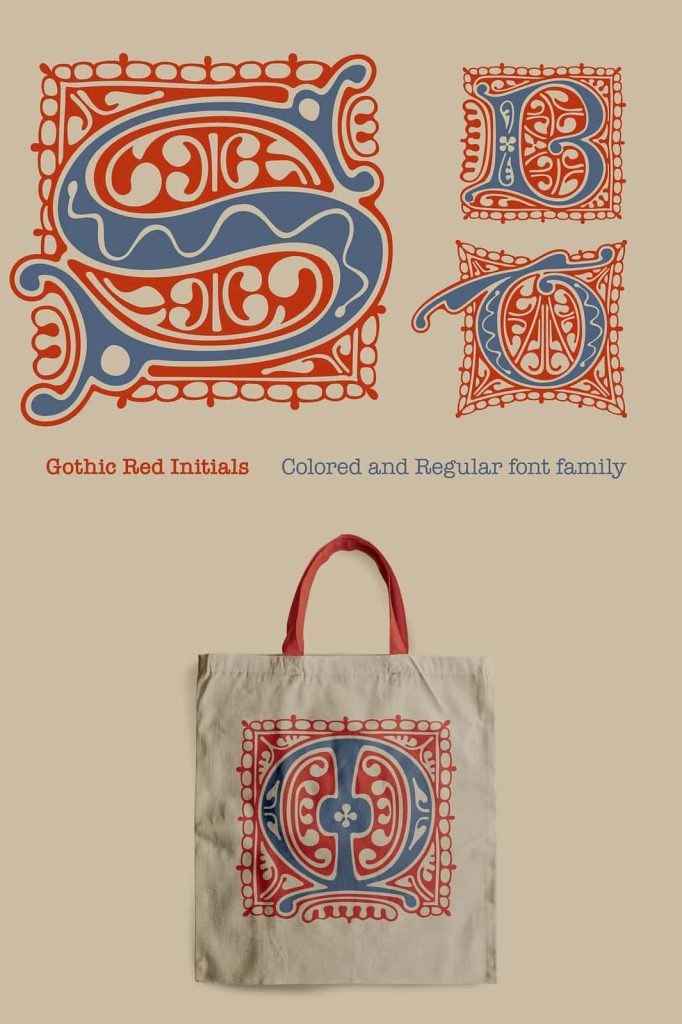
I found the inspiration for this font in the incunable called Facta et dicta memorabilia. An incunable is a book with Gothic Drop caps that was printed in the earliest stages of printing in Europe, up to the year 1500. It was printed in Peter Schöffer typography in 1471, Mainzis (German).